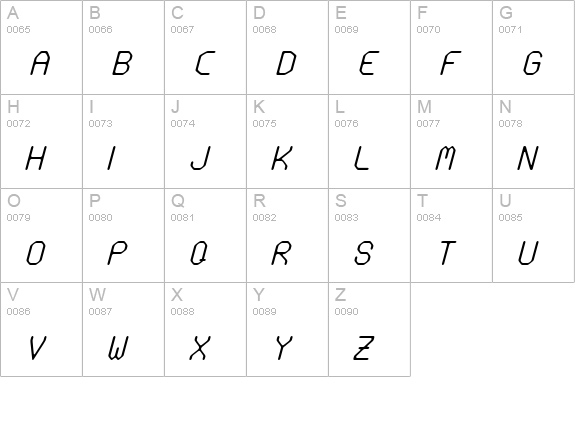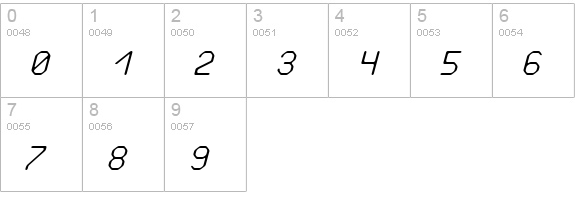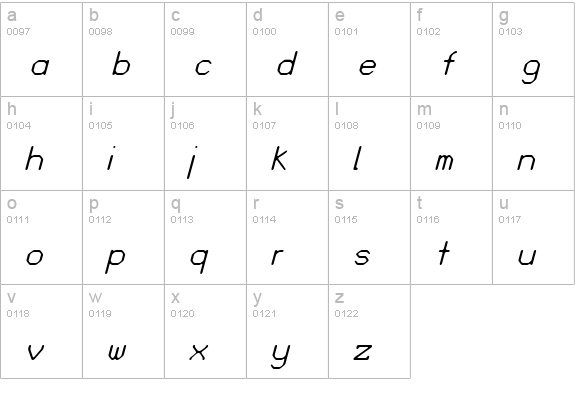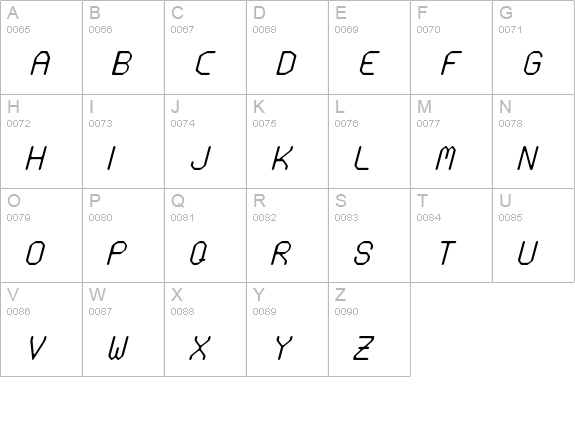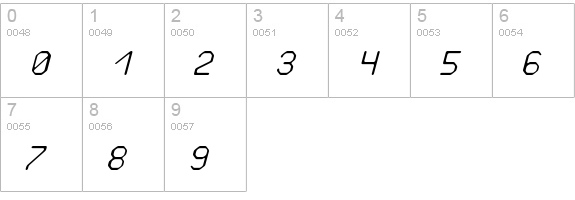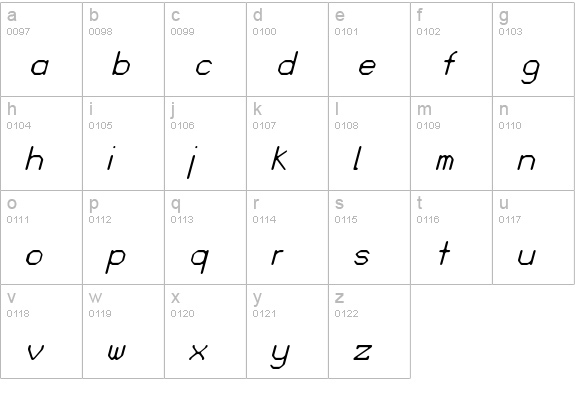
Love Parade italian Font Details
The Love Parade Italian font is a stunning typeface that exudes elegance, sophistication, and charm. Its intricate design and graceful curves make it perfect for adding a touch of romance to your projects. With its classic Italian style, this font is sure to captivate and inspire. What makes Love Parade Italian font even more appealing is that it is available for free download at FontsMarket.com. This means you can easily access this beautiful typeface without any cost, making it a fantastic choice for designers, artists, and anyone looking to enhance their work with a touch of Italian flair. Whether you're working on invitations, branding, posters, or any other creative project, the Love Parade Italian font is sure to make a lasting impression. Download it today and add a touch of romance and sophistication to your designs.